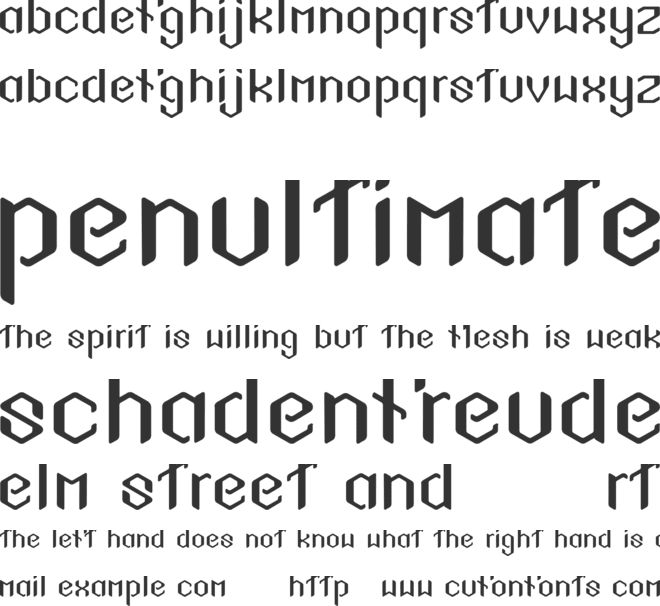
Sigil_Sans Font
sigil sans
Display typeface by designer Grant Hasbrouck. Inspired by family badges and symbols.
lowercase only available at this time.